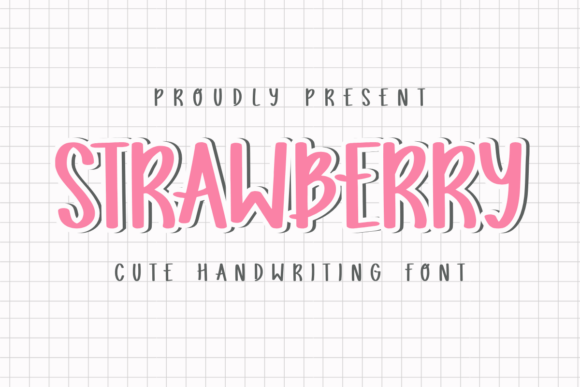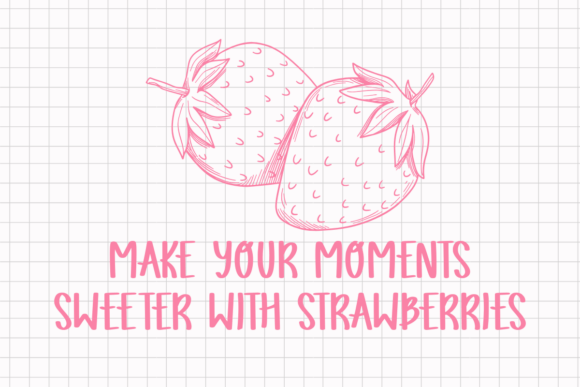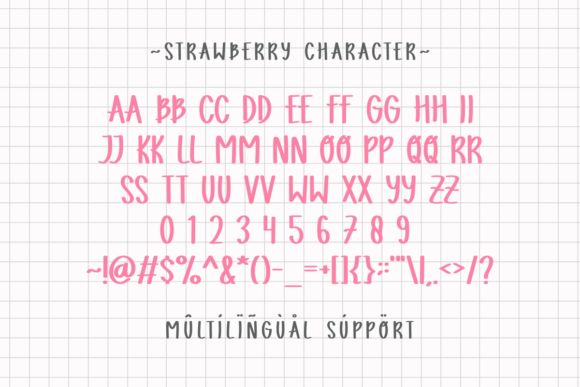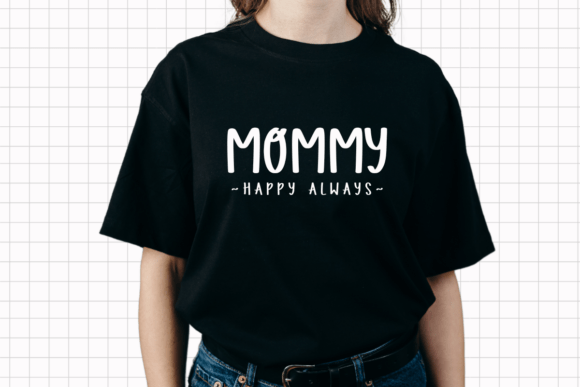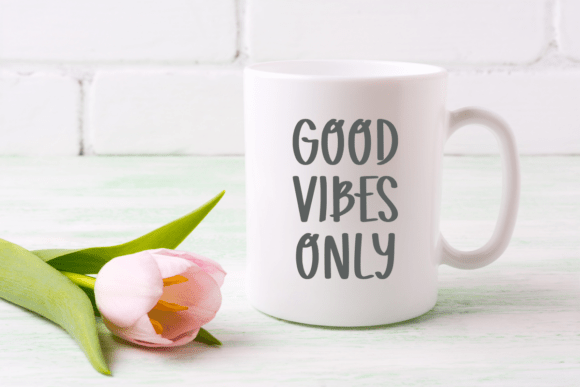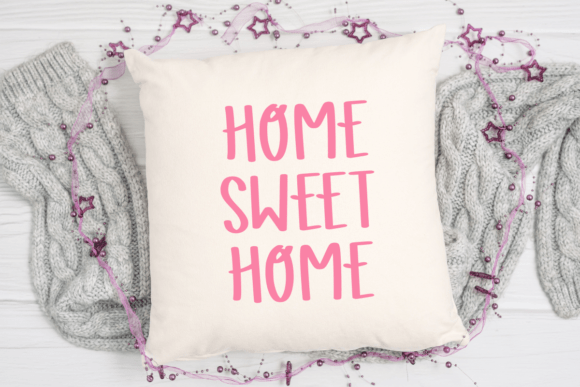
Strawberry Font
Strawberry is a charming handwriting font with a clean yet whimsical vibe. Featuring smooth curves and a hand-drawn feel, this font is perfect for romantic designs, wedding invitations, heartfelt branding, and elegant social media graphics. Its versatile style pairs a modern aesthetic with a touch of playful warmth, making it ideal for creative and love-inspired projects.